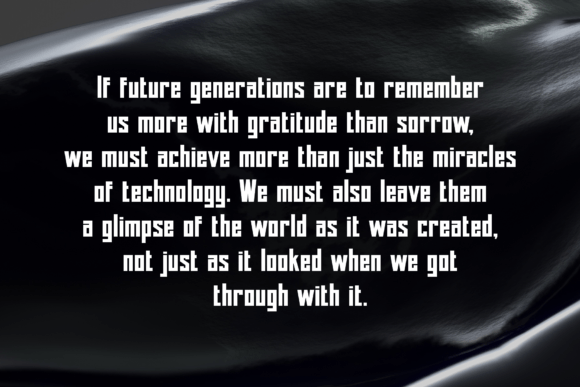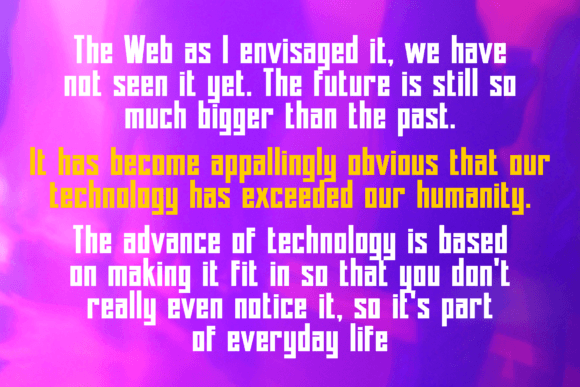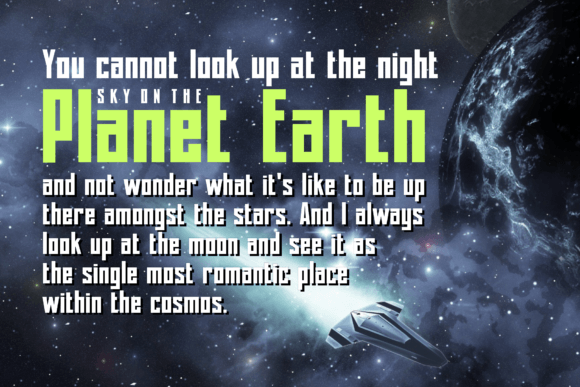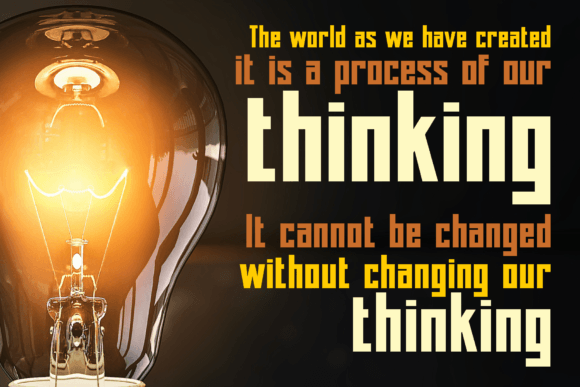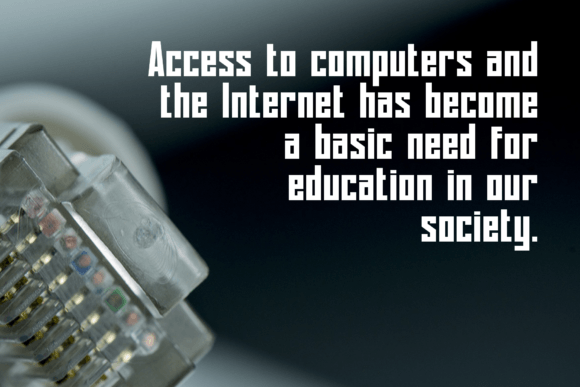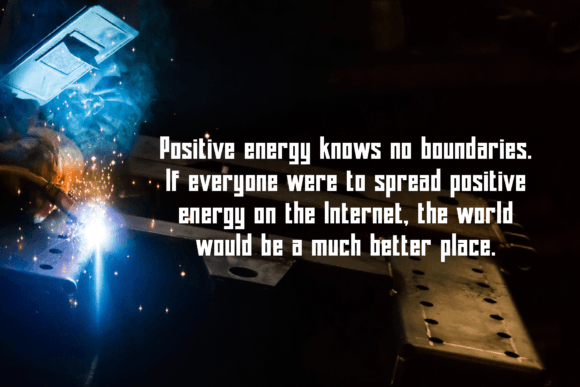
Introduction to Rivay Font
As a designer, there’s nothing quite like the thrill of bringing a creative project to life. You’ve spent hours brainstorming, sketching, and perfecting every detail, and finally, it’s time to add the finishing touches. That’s where the right font can make all the difference. For many designers, the search for the perfect font can be a daunting task, but what if you could find a versatile and high-quality option that would elevate your design to the next level? Enter Rivay Font, a bold sans serif that’s sure to become your new go-to.
Rivay Font is more than just a design resource – it’s a game-changer. With its sharp, unique features and moderately high contrast, this font is perfect for a wide range of creative projects, from wedding invitations and posters to magazine layouts and album designs. Plus, its clean lines and sharp edges make it a great option for logos, website headers, and even t-shirt designs.
Key Features of Rivay Font
- High-quality design resource with a unique, modern aesthetic suitable for creative projects.
- Features a transparent background, allowing for seamless integration into designs and providing maximum flexibility.
- Designed to work well in a range of resolutions, from low to high, ensuring it looks great on various devices and screens.
- Comes in a range of sizes, from small to large, making it suitable for various design applications and creative projects.
- Perfect for designers and artists looking for a high-quality, unique font to elevate their designs and creative projects.
Honest Review: Rivay Font
I recently stumbled upon the Rivay Font while searching for a design resource for a creative project. I was immediately drawn to its elegant and modern aesthetic. As a designer, I appreciate high quality fonts that can elevate my designs and make them stand out.
Here are some things that work well with the Rivay Font: ✨
- It has a wide range of weights and styles, making it suitable for various design applications.
- The font is highly legible, even at smaller font sizes.
- The transparent background option is a great feature, allowing for seamless integration with other design elements.
However, there are some limitations to consider: ⚠️
- The font may not be suitable for very complex or detailed designs, as it can appear a bit generic in certain contexts.
Overall, I’m impressed with the Rivay Font’s quality and versatility. While it may not be perfect for every design project, it’s a solid choice for many creative applications. If you’re looking for a high-quality, modern font for your design needs, the Rivay Font is definitely worth checking out – especially if you’re looking for a free download option to get started with your project.
Rivay Font is a versatile design resource that can be used in a variety of creative projects, including logos, graphics, and presentations. Use the font to add a touch of elegance and sophistication to your design. Whether you’re working on a personal or professional project, Rivay Font is a great choice for designers looking for a high-quality font with a transparent background.